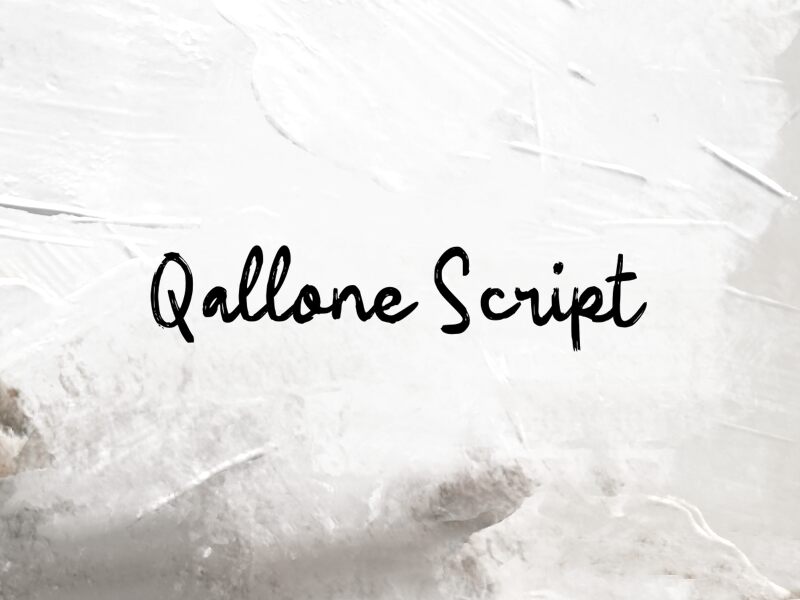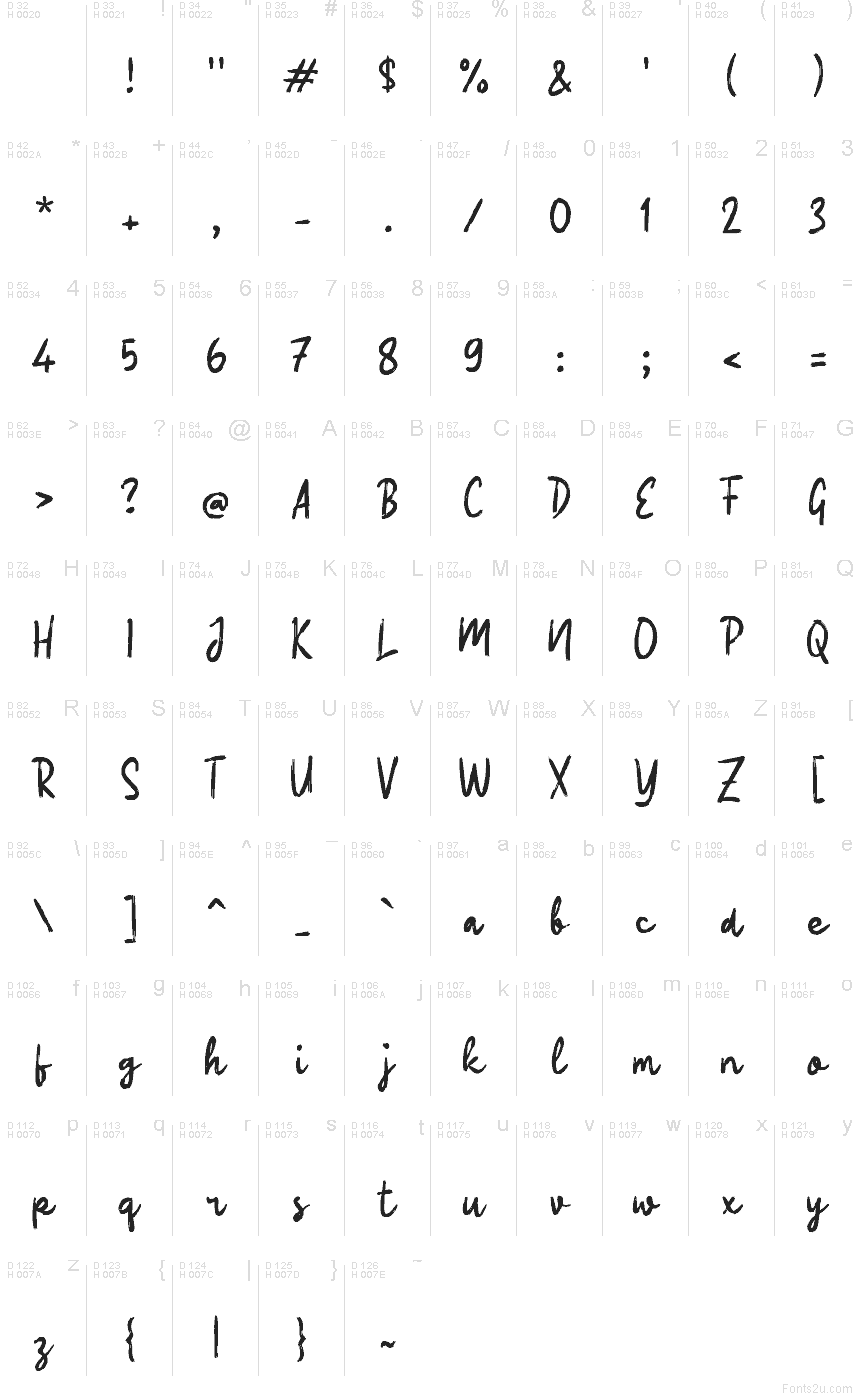
Qallone Script
Qallone Script font by wep is a free handwritten script typeface with the loose, inky confidence of a quick signature. Its slightly rough, grainy strokes feel like they’ve been dashed off with a thick gel pen on textured paper, giving every word a casual, human warmth. The rhythm is relaxed but readable, with letters that lean just enough to feel expressive without slipping into chaos.
This free font shines on logo wordmarks, handmade product labels, social media graphics, quote posters, blog headers, and casual invitations that need a personal touch. Using Qallone Script at larger sizes lets the textured strokes really show. For balance, pair it with a clean, light sans serif for body text so the script can do the emotive, attention-grabbing work.